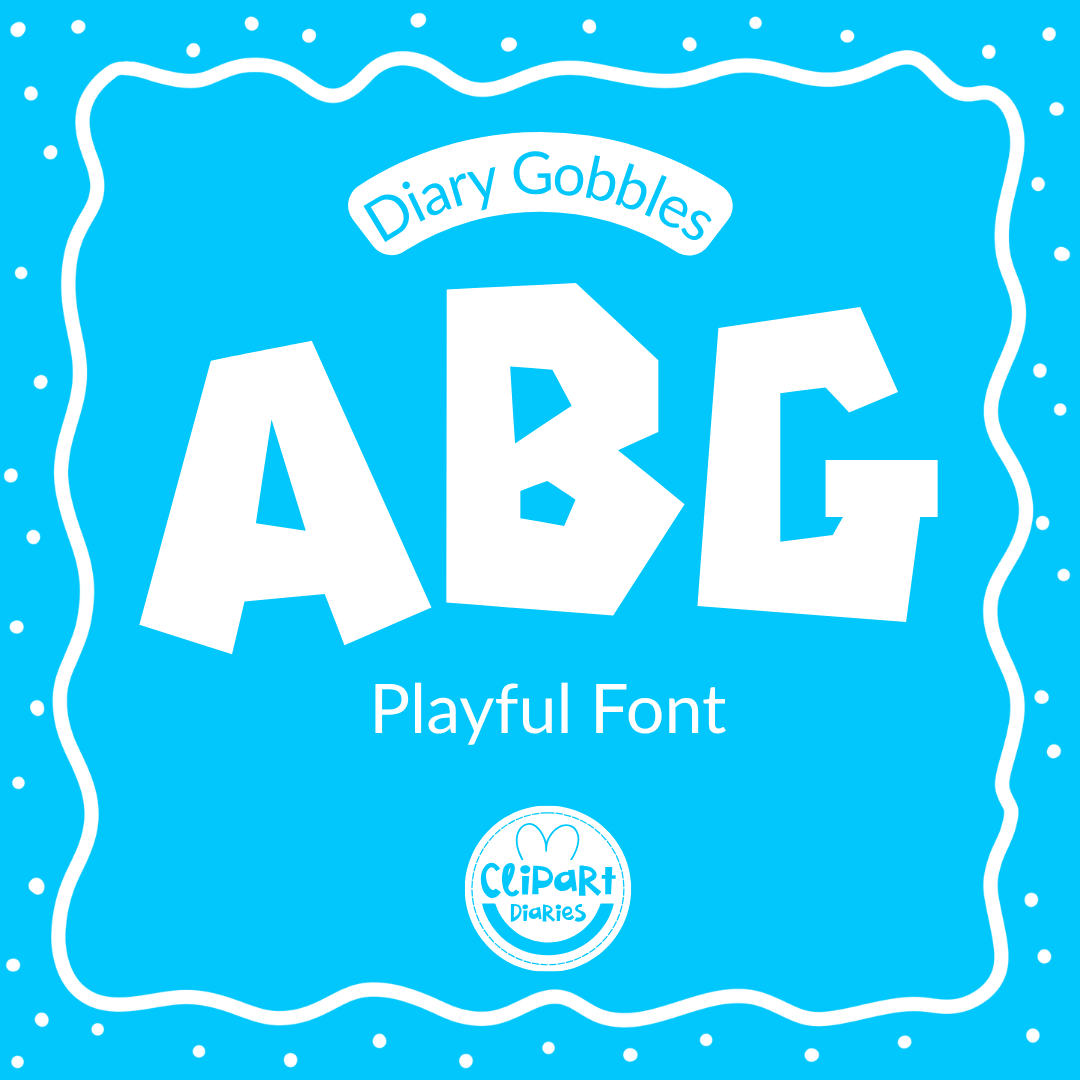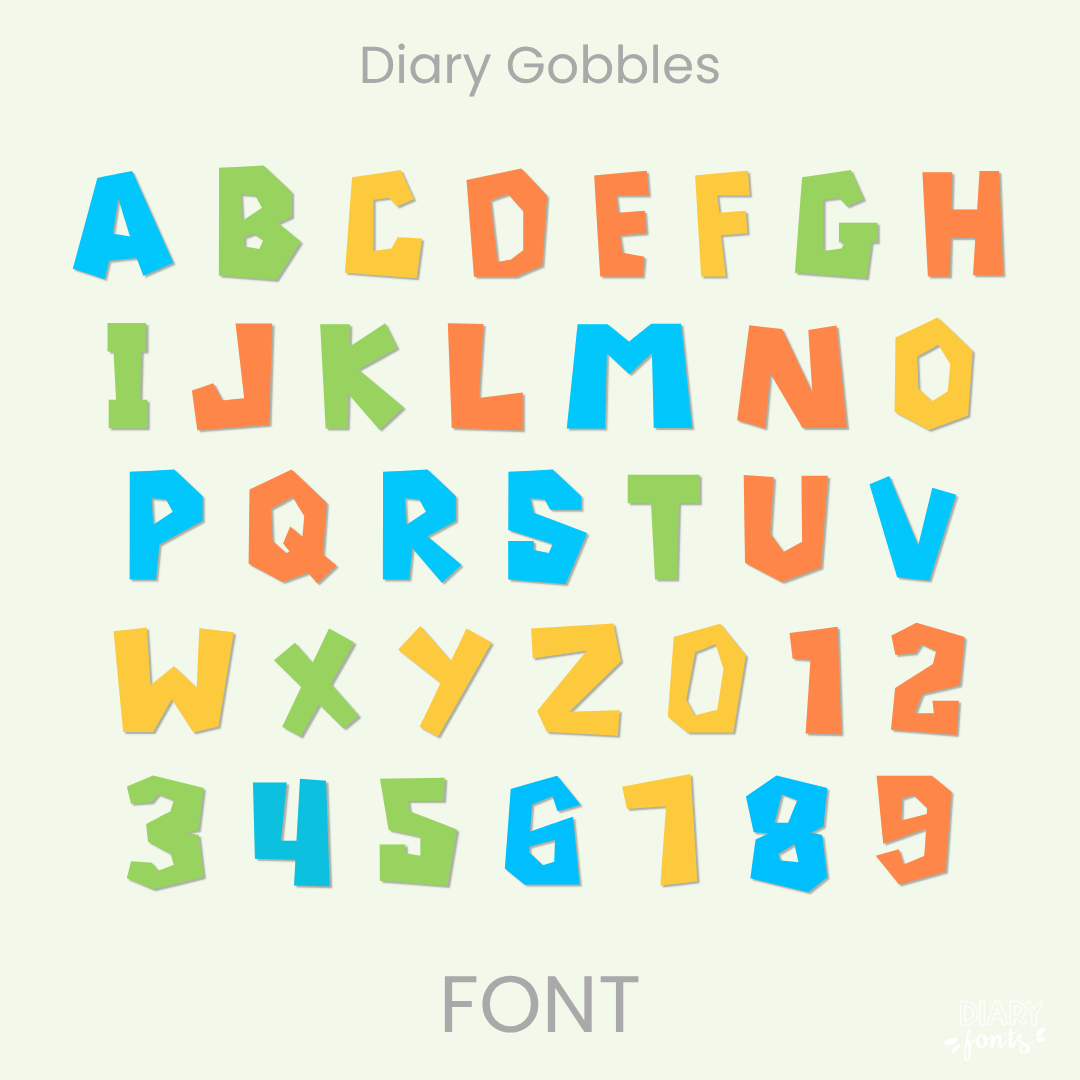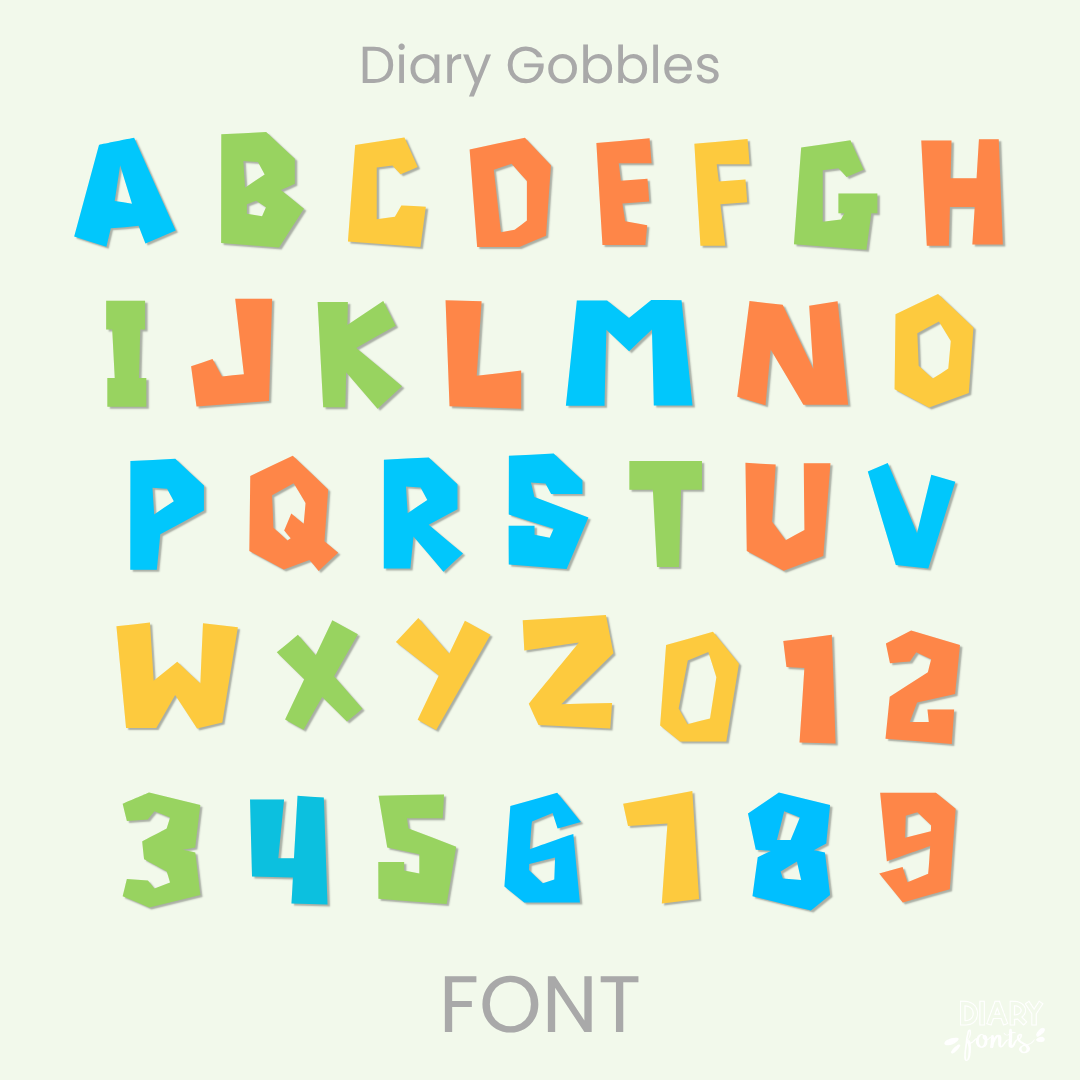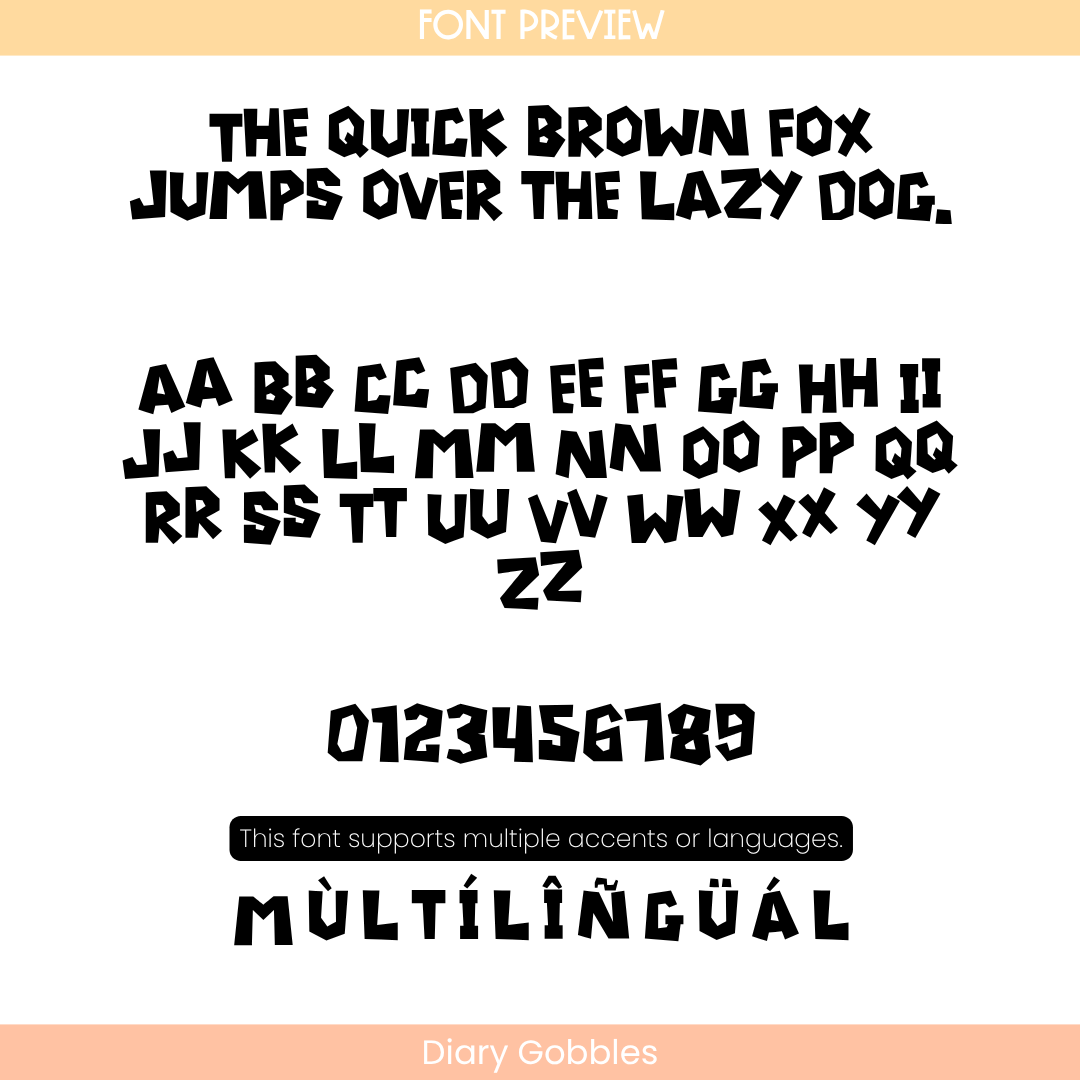
If you want to give your projects a cheerful and high-impact presence, Diary Gobbles is an excellent choice. It features thick, blocky character forms with a delightful, hand-drawn layout style. Because both the uppercase and lowercase keystrokes feature large, solid layout letters, it is perfectly optimized for bold headings, bulletin boards, covers, and focal text blocks where a soft but strong visual punch is needed. The font includes a full set of letters, numbers, and multiple accents to support different languages. It is ready for use in Canva, MS Office, and Adobe Apps, and it works flawlessly on the iPad with GoodNotes and Procreate. Whether for personal classroom designs or commercial teacher resources, this font adds a soft and approachable aesthetic to your work.
Diary Gobbles Font
The Diary Gobbles is a bold, all-caps handwritten font designed to give your resource headers, titles, and classroom displays a prominent and eye-catching look.